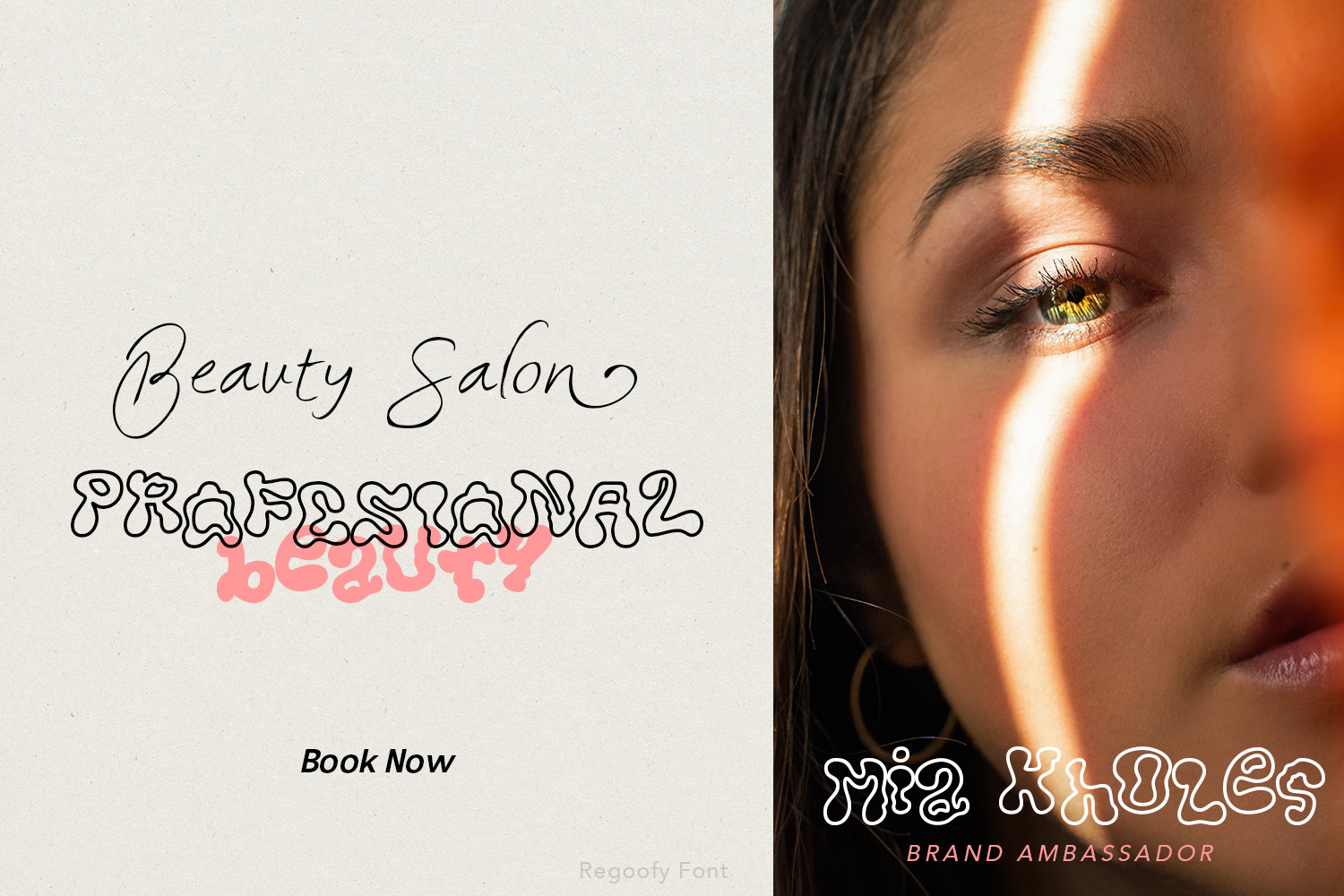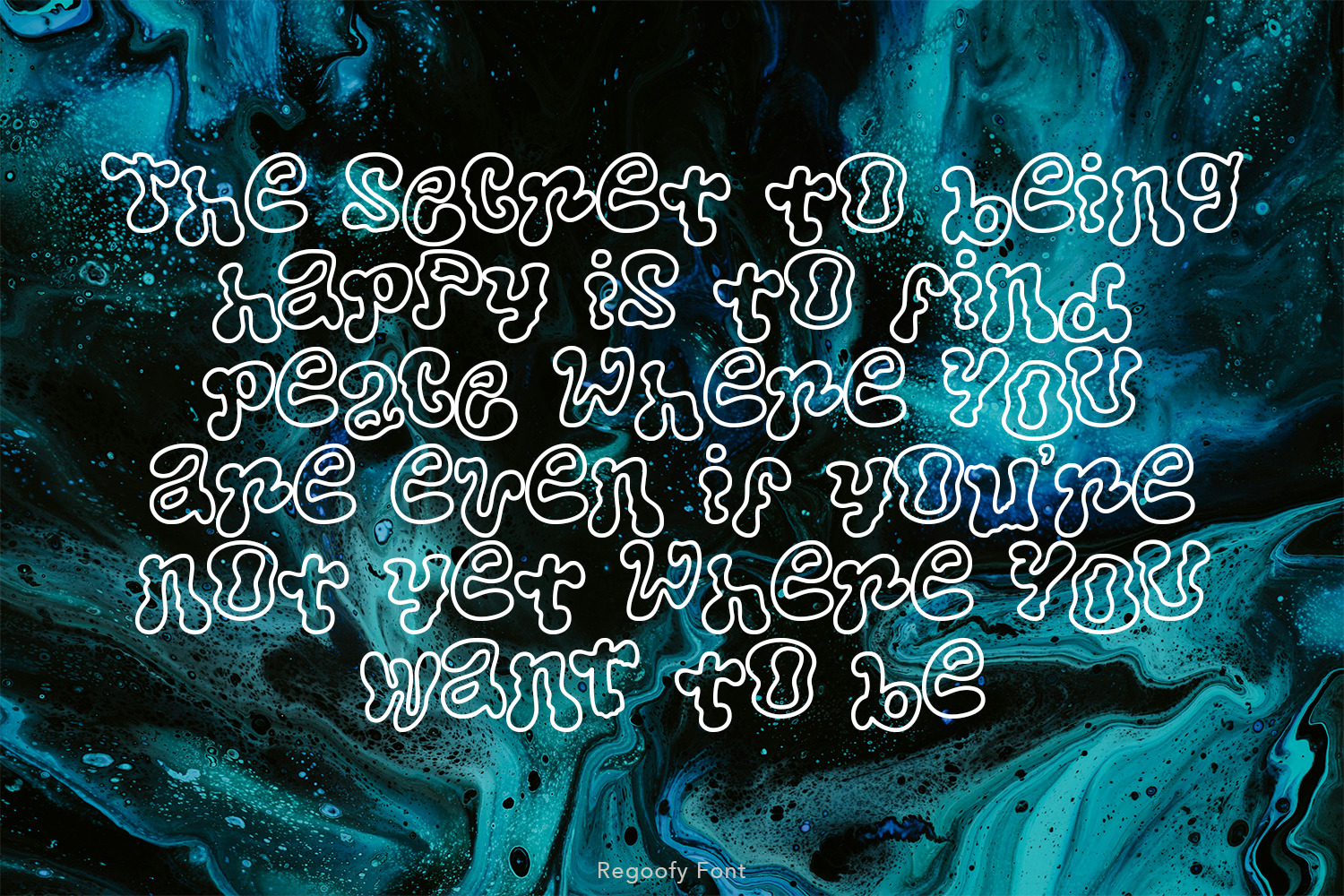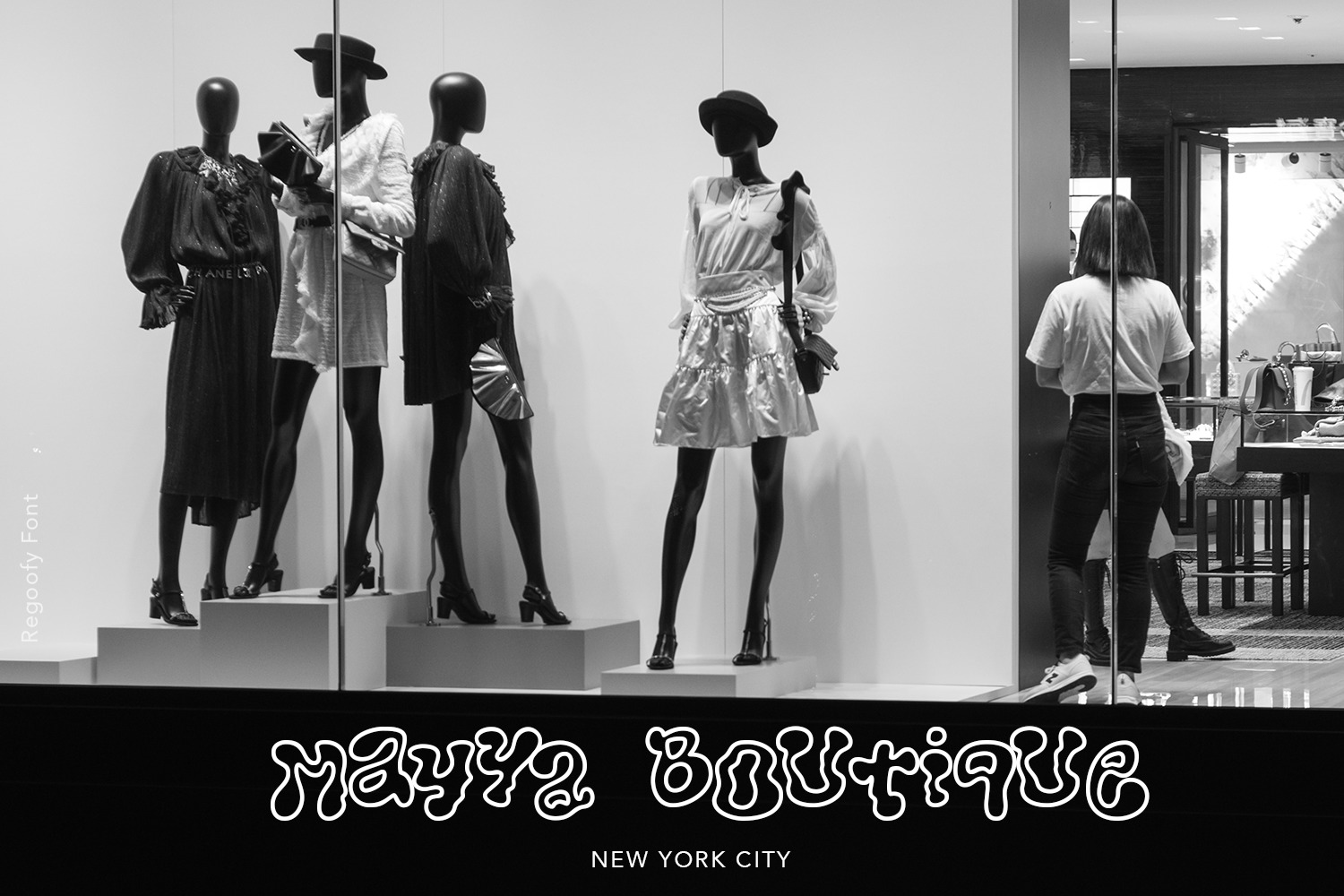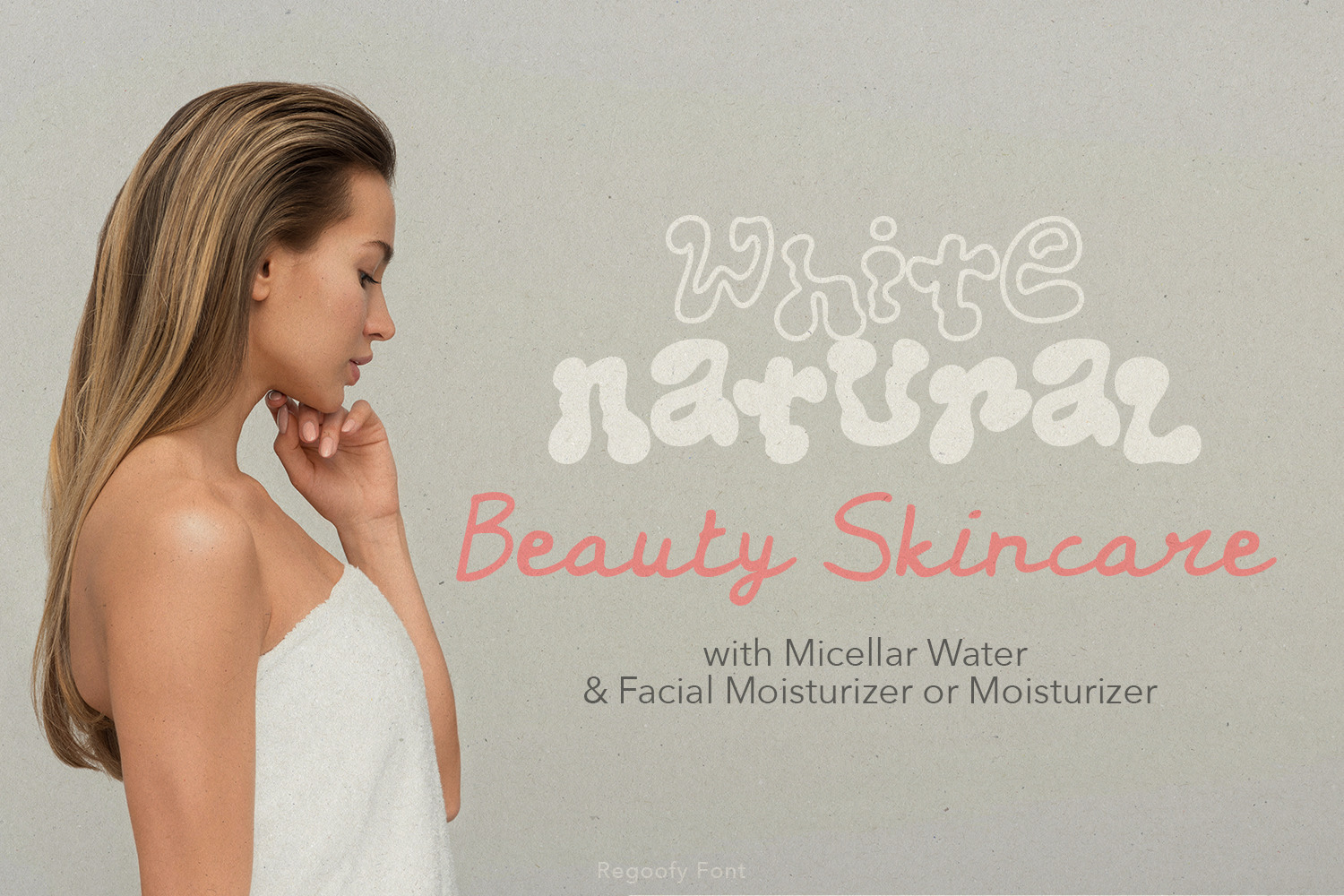
Regoofy Wave Font
Regoofy is a melt and wave display font inspired from urban style. Standing out and unique to explore and combine creating rhythm for comfortable reading. This font perfect for creating something a bit different, such logotype, stickers, packaging design, headlines, brand identity, t-shirt, posters, magazines, books, Instagram, websites, and many more.